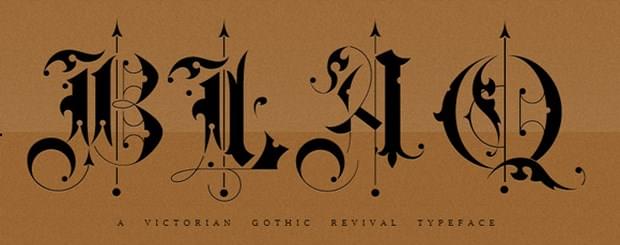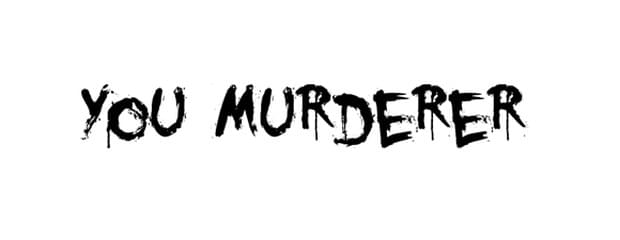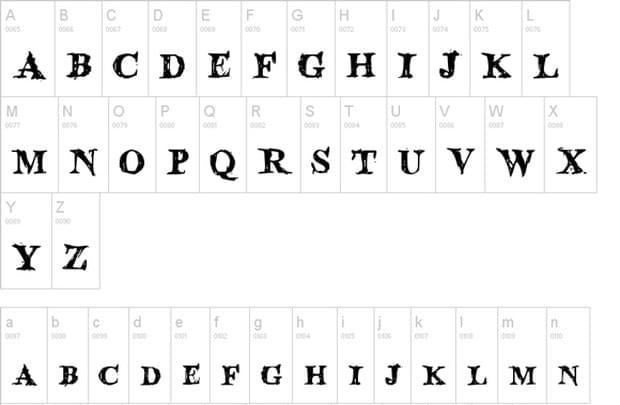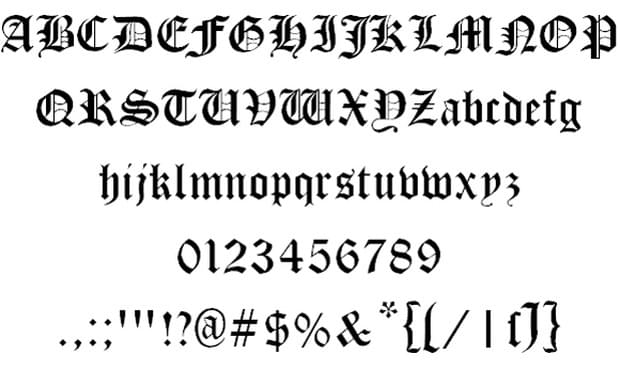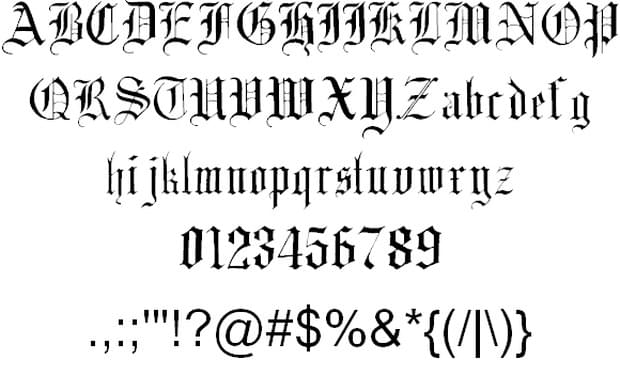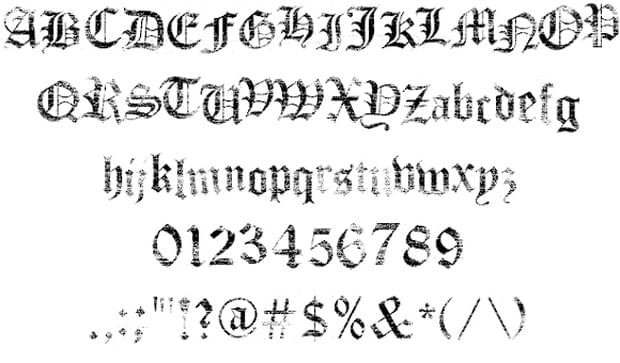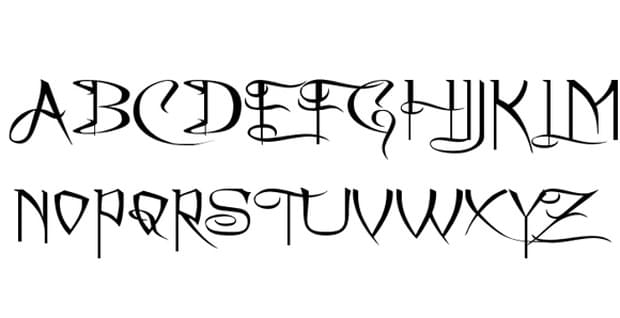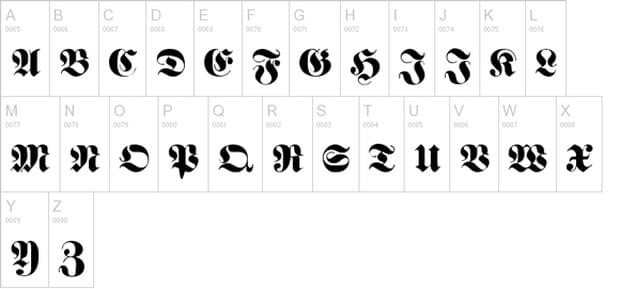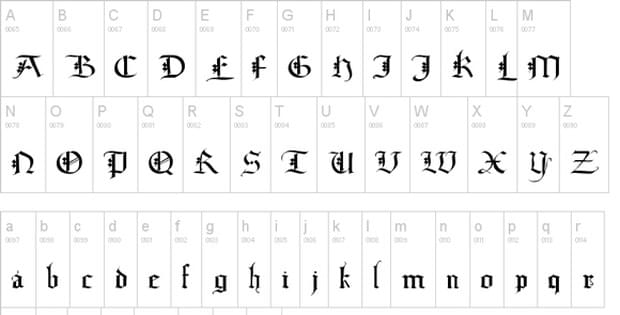
45 Terrifying Gothic Fonts For Designers
What does A Nightmare on Elm Street, The Omen and The Evil Dead all have in common? Yes of course they are all horror movies but have you ever noticed the font they use to write their names on posters? Scary, isn’t it?
Of course a horror movie cannot use a font Disney uses for its logo. That would look out of sync and may end up casting an impression that it is not a horror flick at all. People may confuse the movie to belong to the genre of the Scary Movie types – half comedy, half horror.
I am not suggesting for a moment that using a scary font for a horror movie (or book or comic or whatever) will make it a big hit. But I am suggesting that the font plays its own important role.
Below we have collected 45 Gothic fonts which we think are the best of the horror genre. If you are a designer and get frequent clients who work in the horror industry then these fonts will prove a great help to you.
1. Blaq
2. Gothic Love Letters font
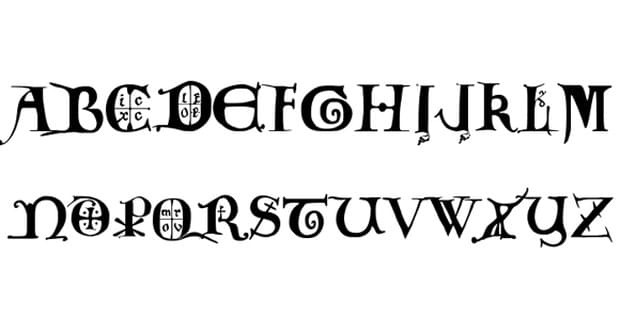
3. You Murderer Font
4. Blood Crow
5. Survival Horror
6. Cloister Black font
7. English Gothic
8. BIonique
9. Cantara Gotica
10. Faith Collapsing font
11. A Charming Font Expanded
12. Berliner
13. Proclamate
14. Cuxhaven Times
15. Satanick
16. Black Castle
17. Diamond Gothic
18. Creeps ville
19. Wood Chippr
20. Eat street
21. Bloodsuckers
22. Deutsche Zierschrift font
23. Buffied font
24. Gotica Font
25. Guido
26. Quael Gothic
27. 13th Ghostwrite font
28. Deutsch Gothic
29. Sketch Gothic
30. Lina Script Demo font
31. Trinigan FG font
32. Tintoretto
33. Akvaleir regular Font
34. Vtks Espinhuda font
35. Diploma
36. A Gothique Time
37. Endor Alt
38. 12th century caps Font
39. Mael